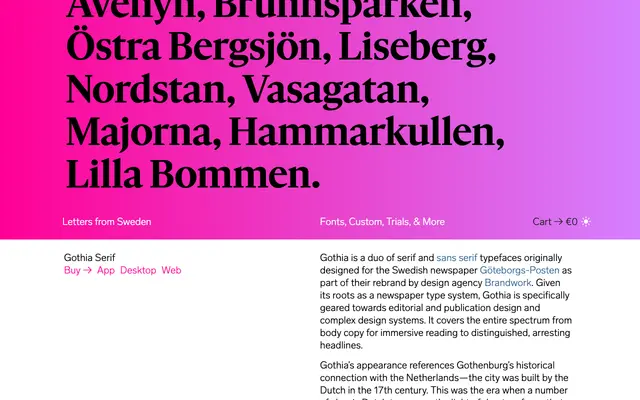
Gothia Serif
Letters from Sweden · Göran Söderström · 2019
A Dutch Old Style serif designed for Göteborgs-Posten, drawing on 17th-century Dutch letterforms and inflected with a Scandinavian crispness.
Commissioned for the rebrand of Swedish newspaper Göteborgs-Posten by design agency Brandwork, Gothia Serif takes its historical cues from the Dutch city planners who built Gothenburg in the 17th century. Letterforms reference the types of Hendrik van den Keere and Christoffel van Dijck as well as the contemporary work of Gerard Unger, achieving a supple elegance with sharp, precise details. The family is primarily oriented towards display use, with a separate Gothia Serif Text cut available for body copy settings.
Gothia Serif draws directly from 17th-century Dutch typographic tradition, referencing letterforms by Hendrik van den Keere and Christoffel van Dijck, combined with contemporary influences from Gerard Unger, placing it squarely in the Dutch Old Style category.